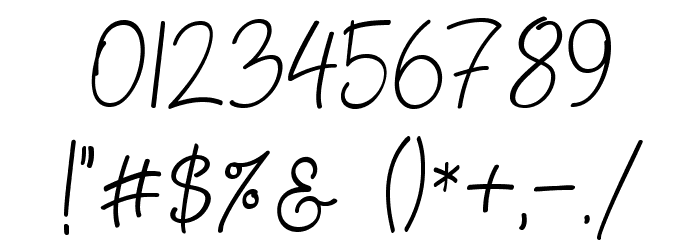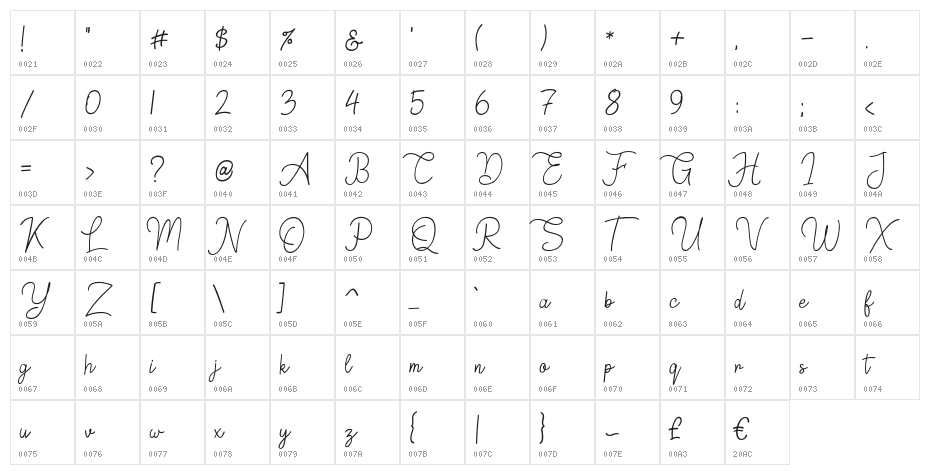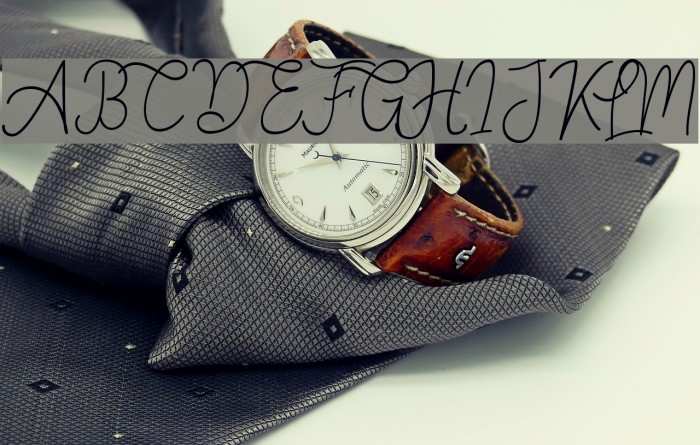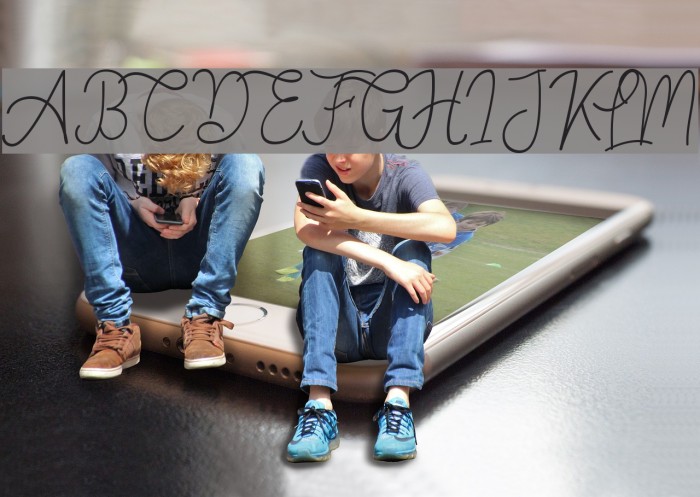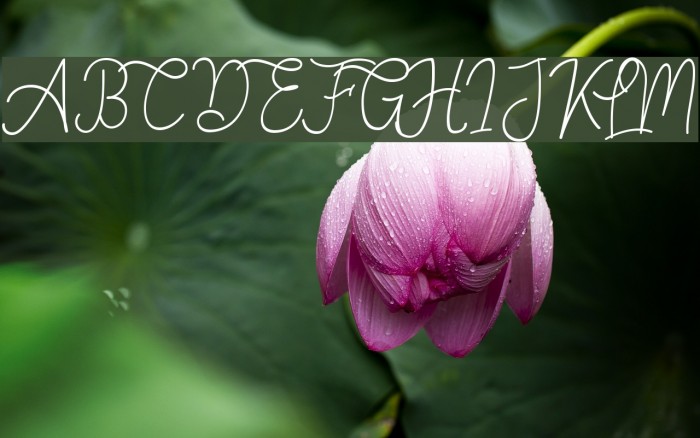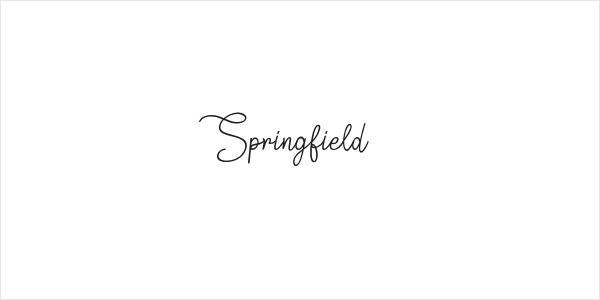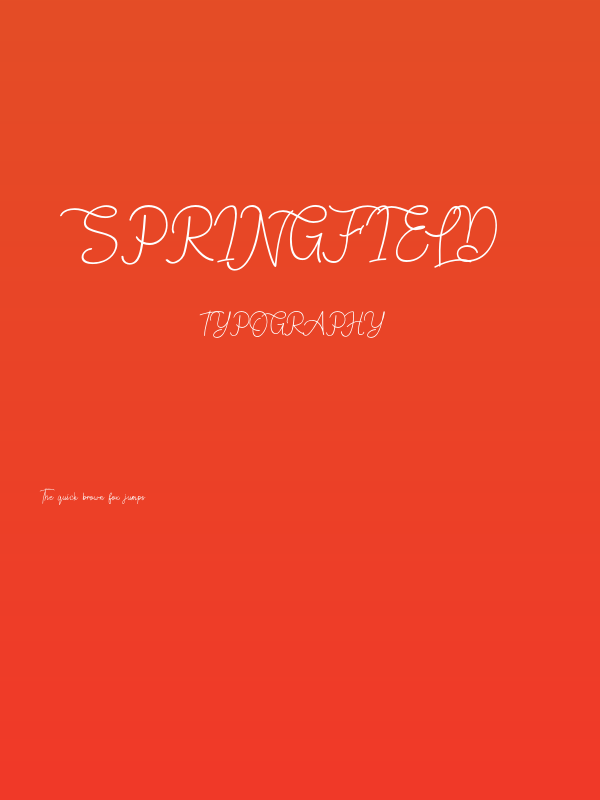
Springfield Font
Springfield Description
This font exudes a casual and elegant handwritten style, characterized by its fluid and connected strokes. The uppercase letters are tall and slightly narrow, with a graceful flow that mimics natural handwriting. The lowercase letters maintain a consistent style, with smooth curves and a slight slant, enhancing the handwritten feel. The numerals are clear and legible, matching the overall aesthetic of the font. Special characters are thoughtfully designed, maintaining the cohesive style. This font is perfect for projects that require a personal touch, such as invitations, greeting cards, or branding materials.
| Overall Style | Casual, Elegant |
| Proposed Projects | Ideal for invitations, greeting cards, personal branding, and creative projects. |